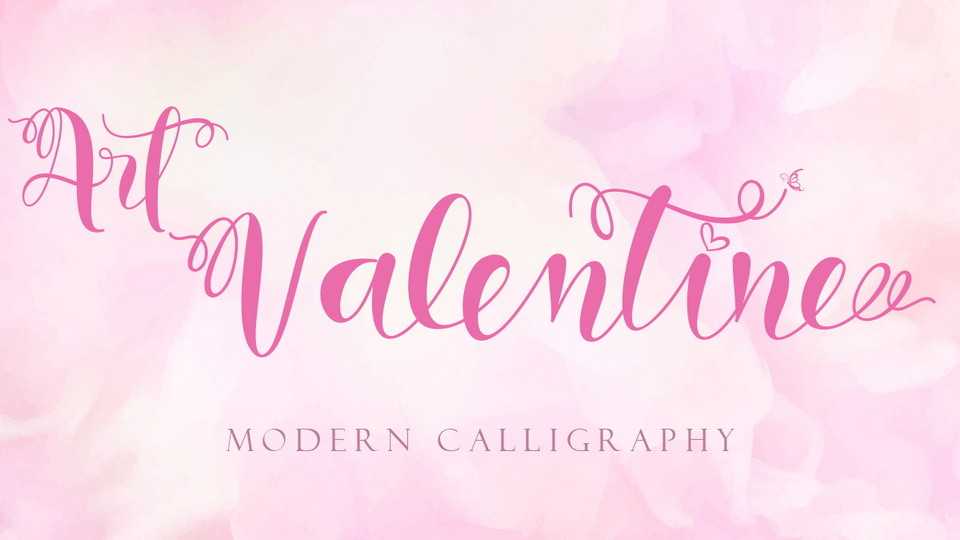
Download Art Valentine font, a very pretty and unique typeface, with curves in the subtle letters and swashes and ligatures that are very pretty and elegant.